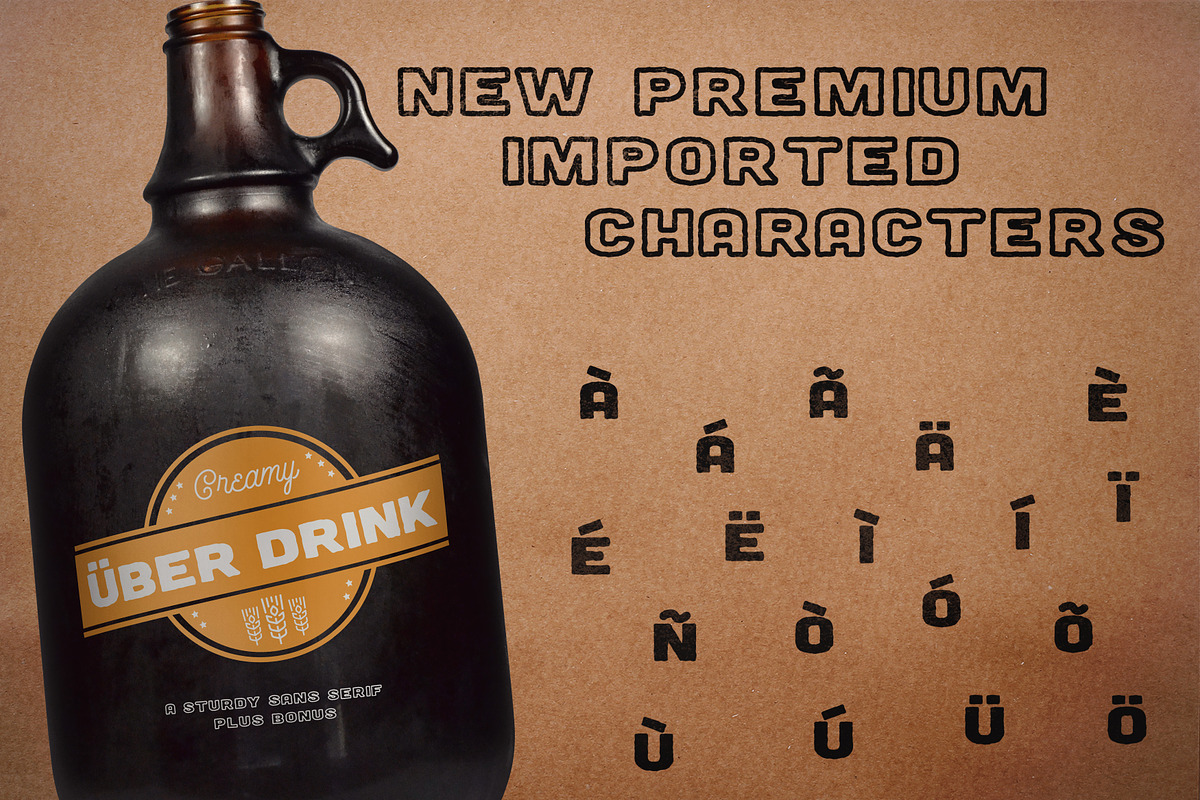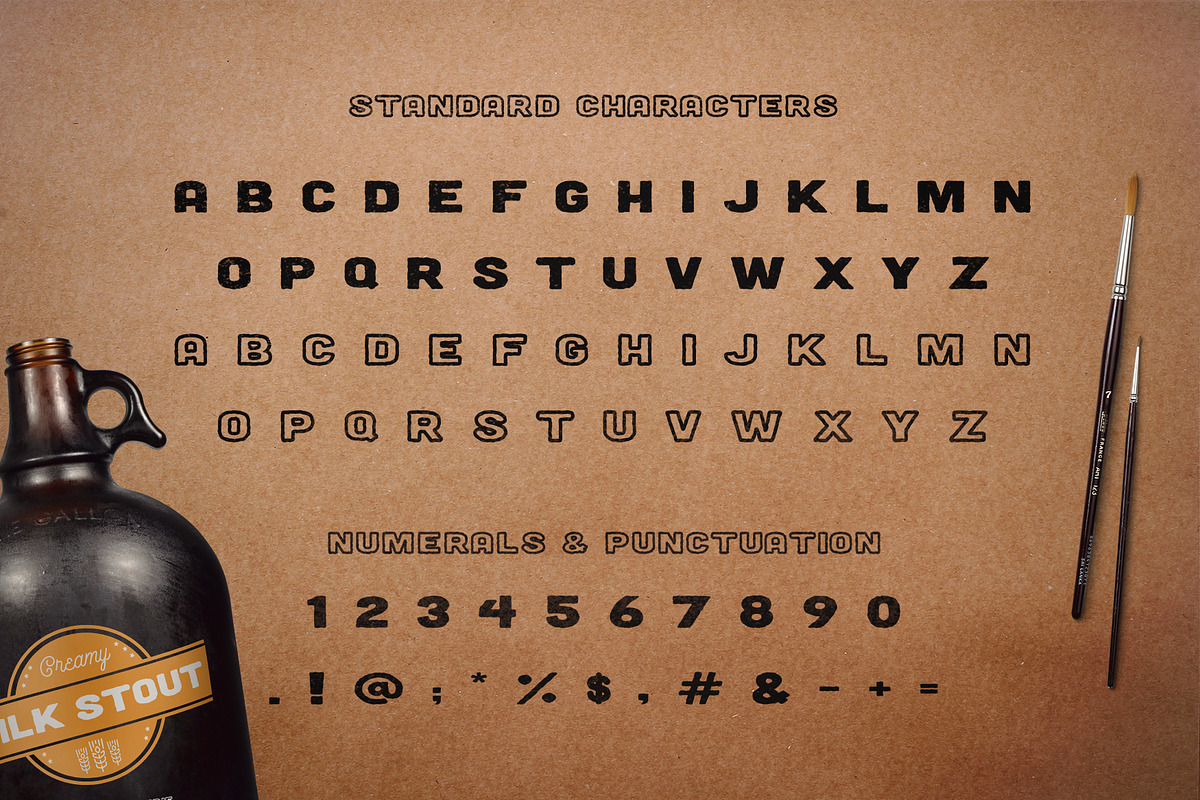
Milk Stout Font
Milk Stout Font by Flycatcher Design is a font selected for branding, posters, packaging, typography.
- It includes 2 fonts (Fill & Outline).
- Milk Stout Regular
- Milk Stout Line
Milk Stout Font by Flycatcher Design fits naturally into Branding, posters, packaging, typography.